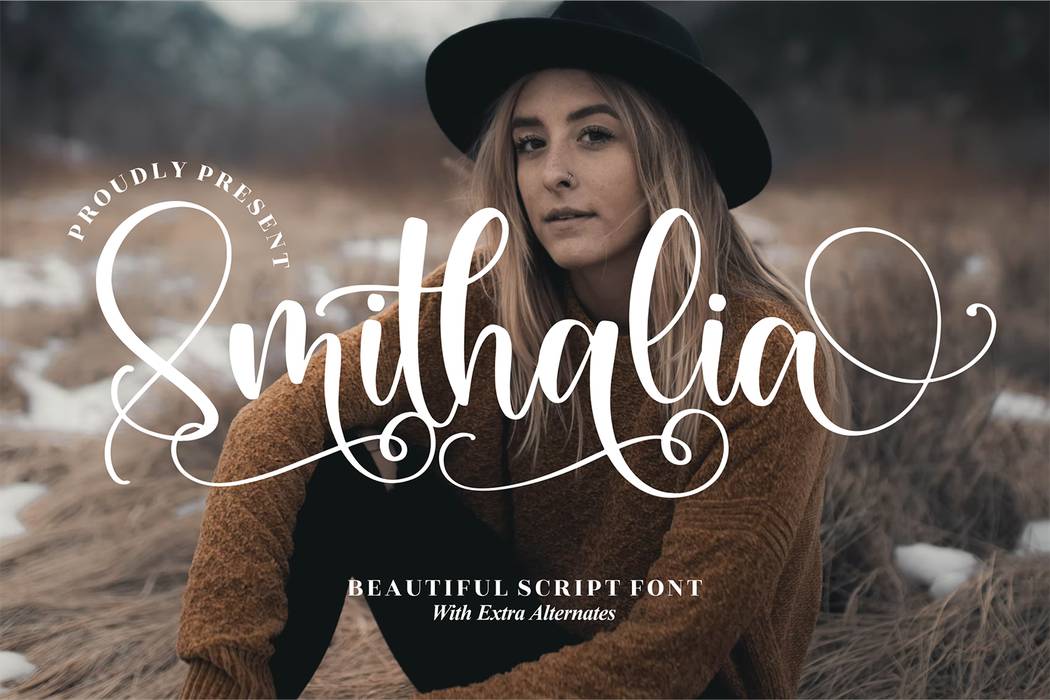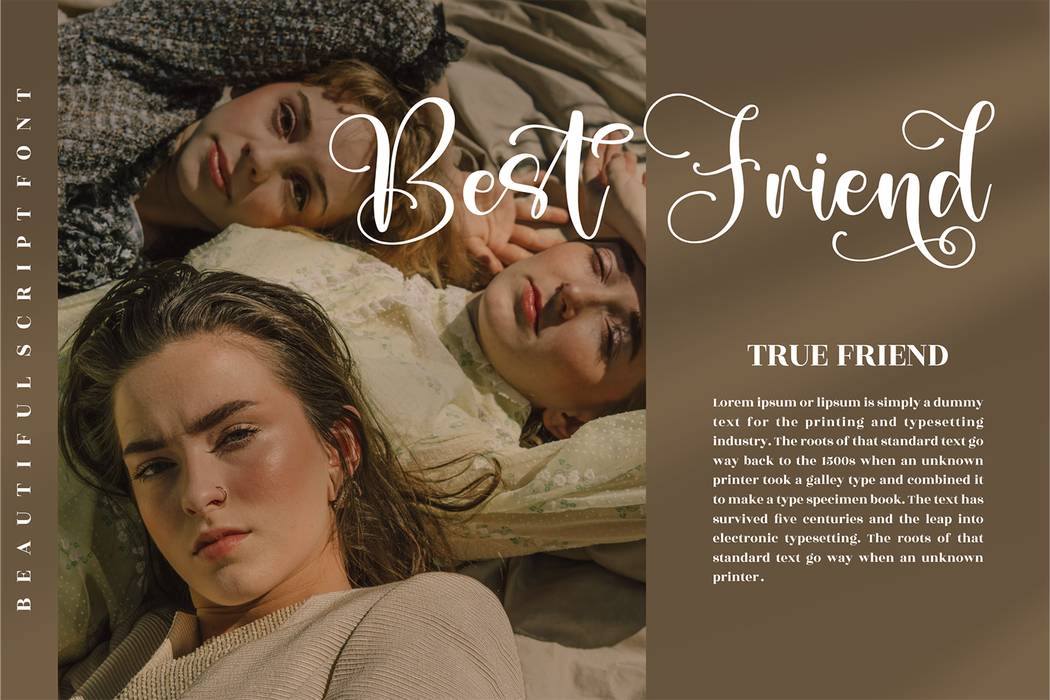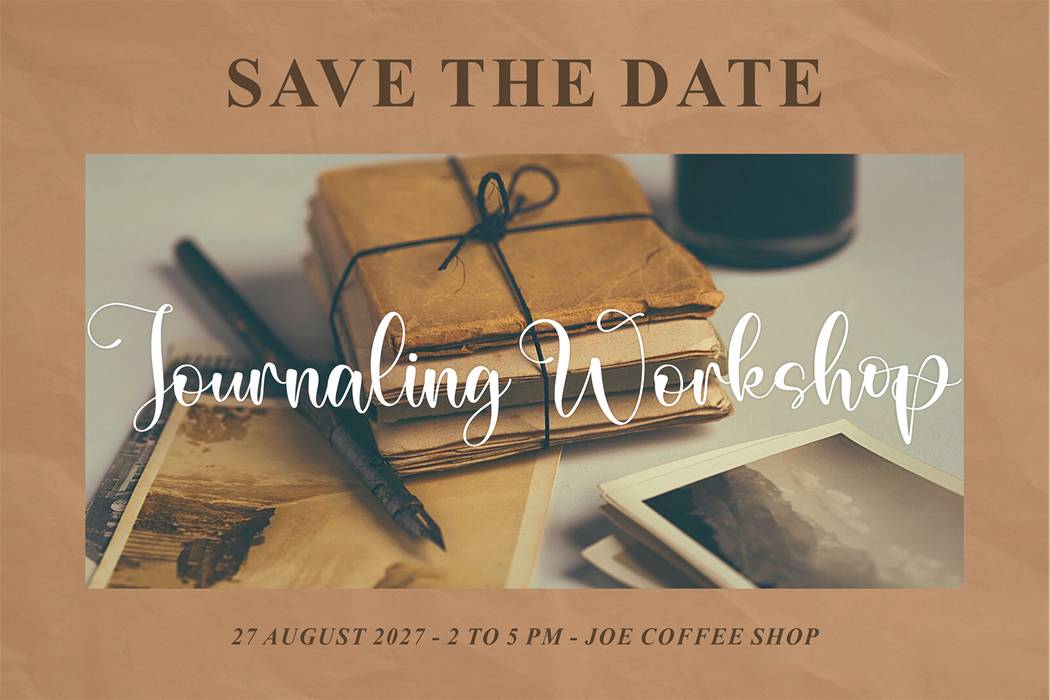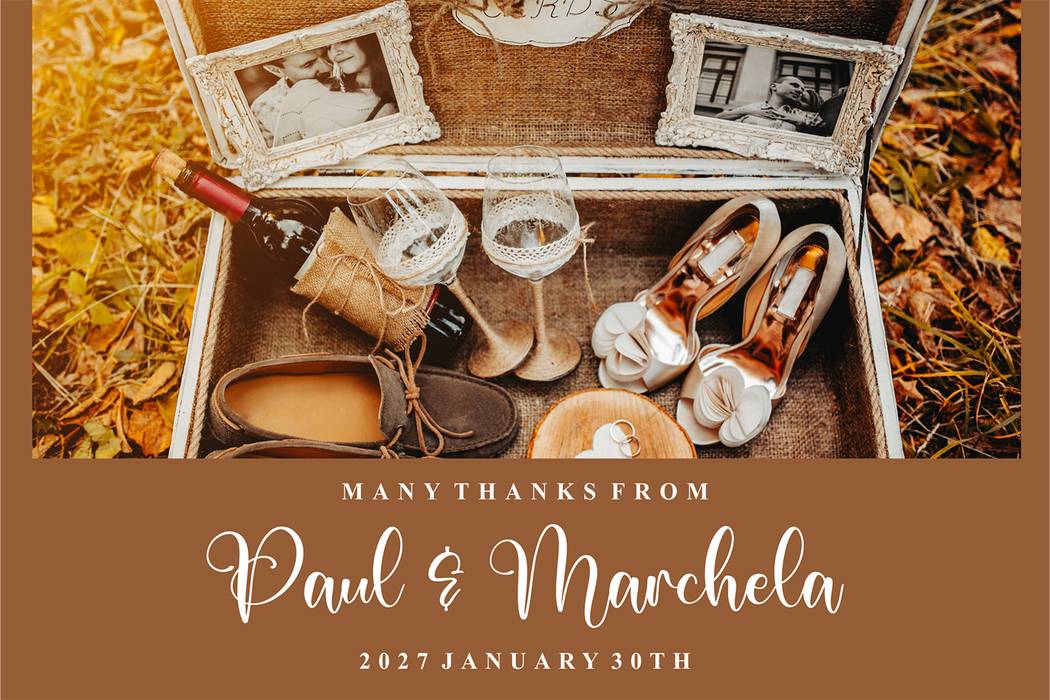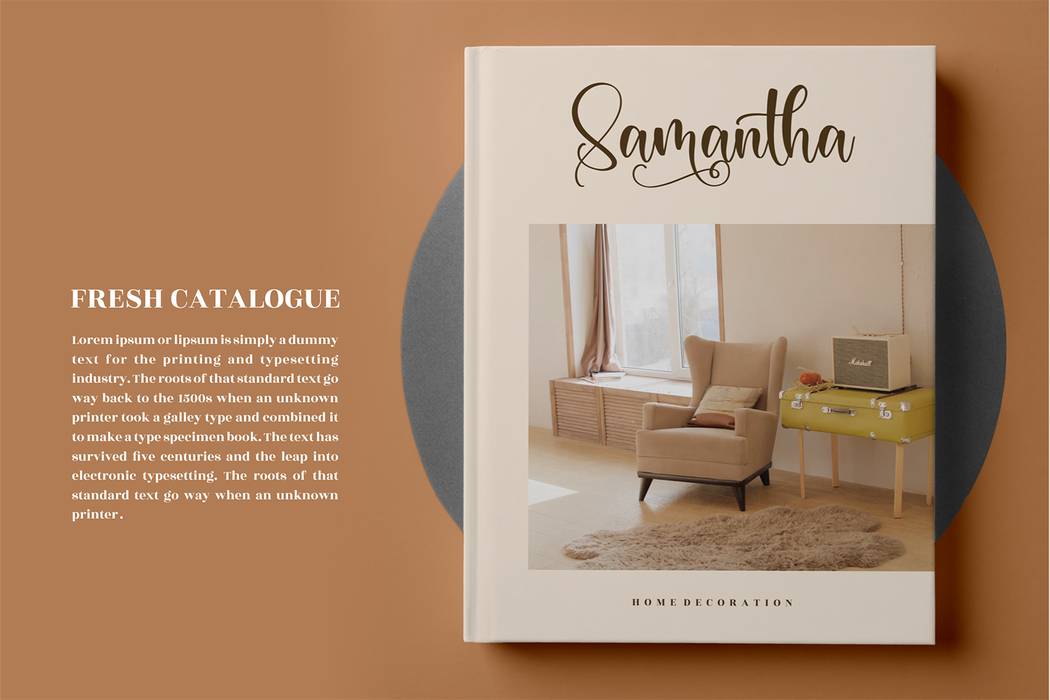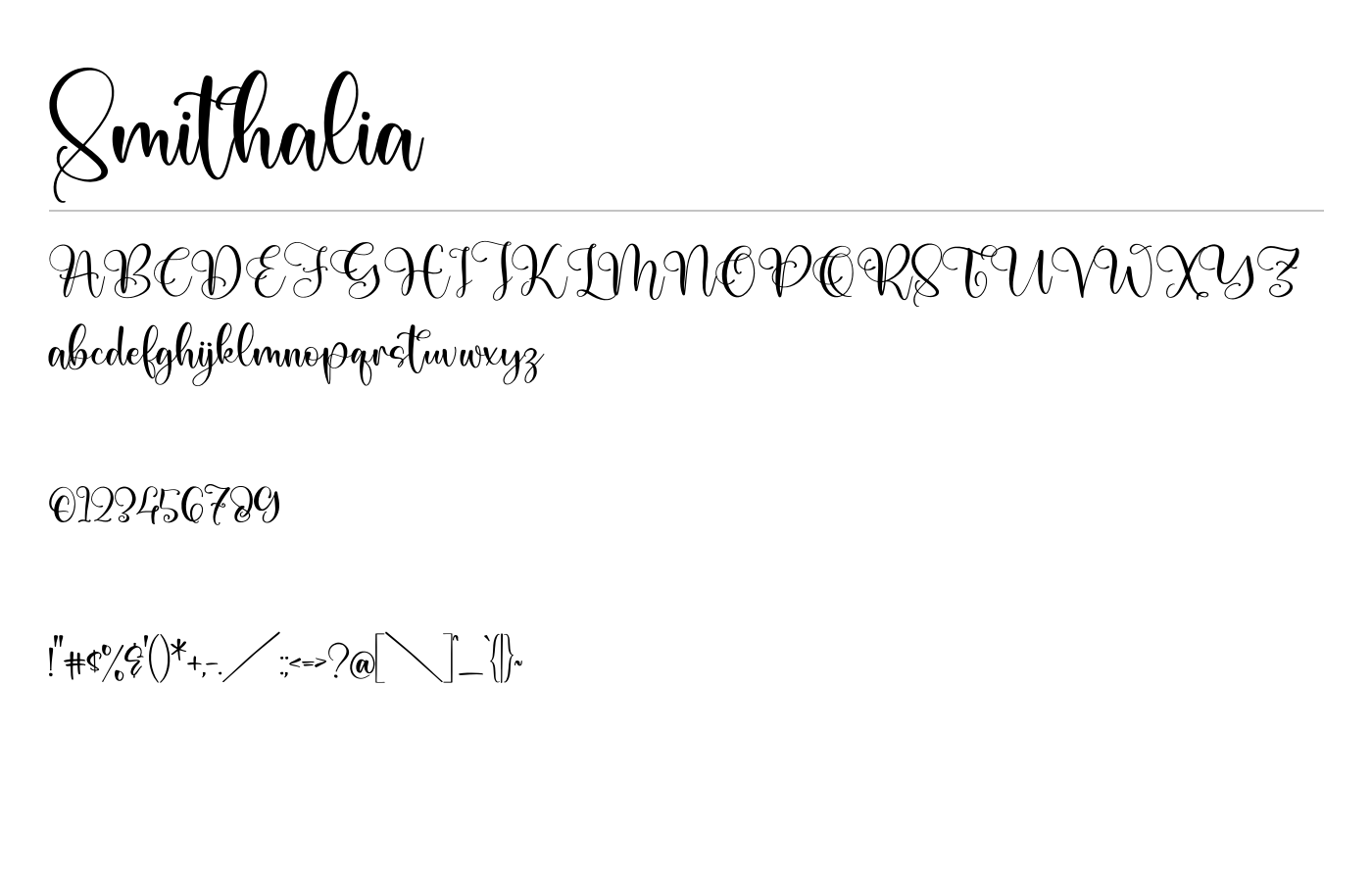
Smithalia is an elegant script font featuring flowing, delicate strokes with playful flourishes, especially noticeable in its uppercase letters. Its lightweight, handwritten style makes it perfect for invitations, branding, and any design that seeks a sophisticated yet approachable feel. This font shines in display uses where a graceful and refined touch is desired.
Smithalia Font
About Smithalia Font